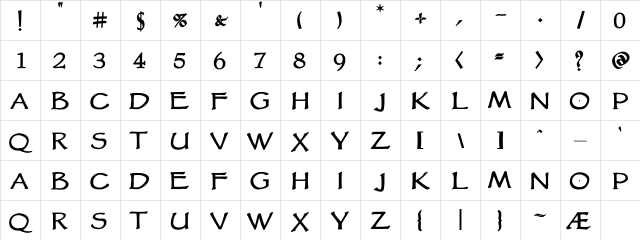
VTCGoblinHand Regular Font Preview
VTCGoblinHand Regular
VTCGoblinHand Regular Font Details
| Designer | WolfBainX |
Design Context for VTCGoblinHand Typeface
VTCGoblinHand flows with the natural rhythm of handwritten lettering, making it ideal for designs that call for warmth and personal expression.
Font Pairing: Combine VTCGoblinHand with a simple geometric sans for maximum contrast — the tension between flowing curves and clean structure is a classic typographic pairing.
Pro Tip: Pair VTCGoblinHand with a clean sans-serif for supporting text. The contrast between fluid script and geometric structure creates an elegant typographic hierarchy.